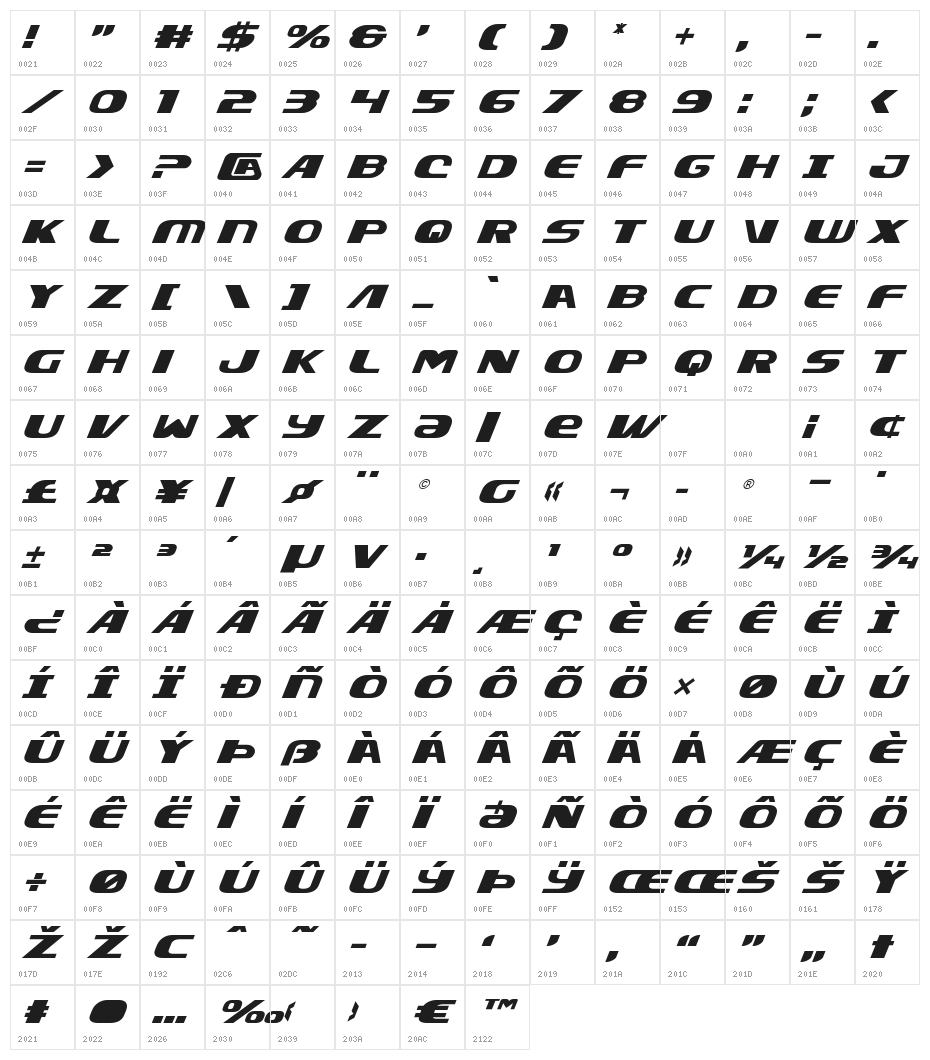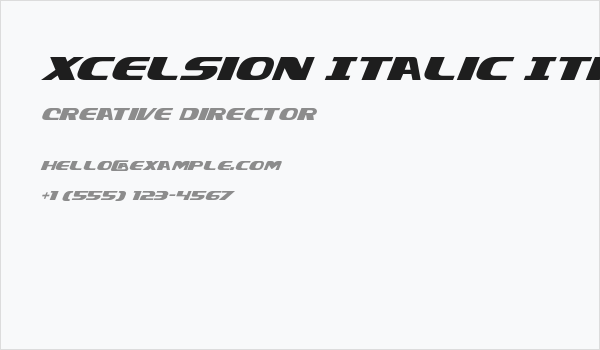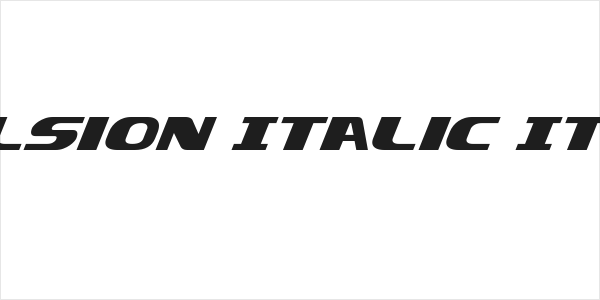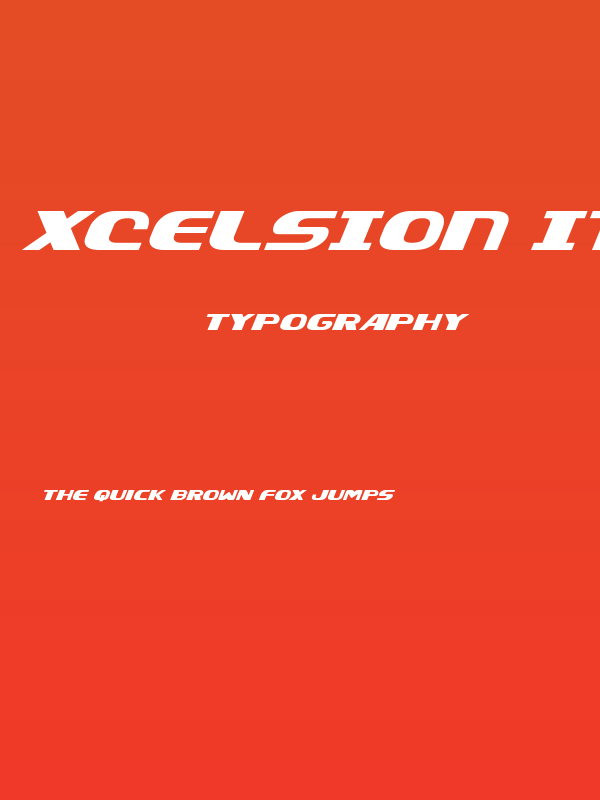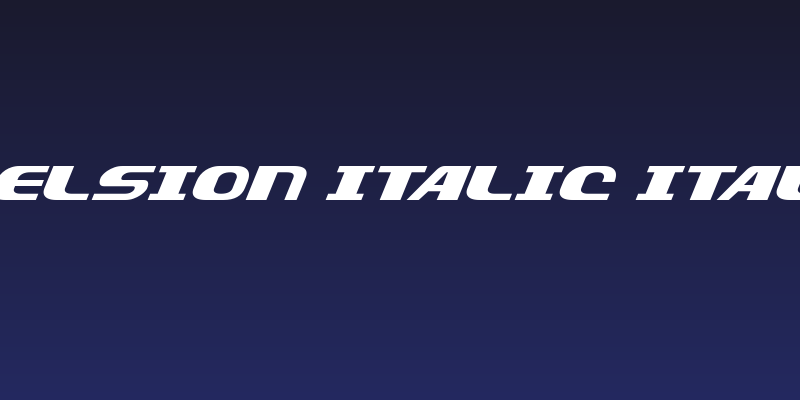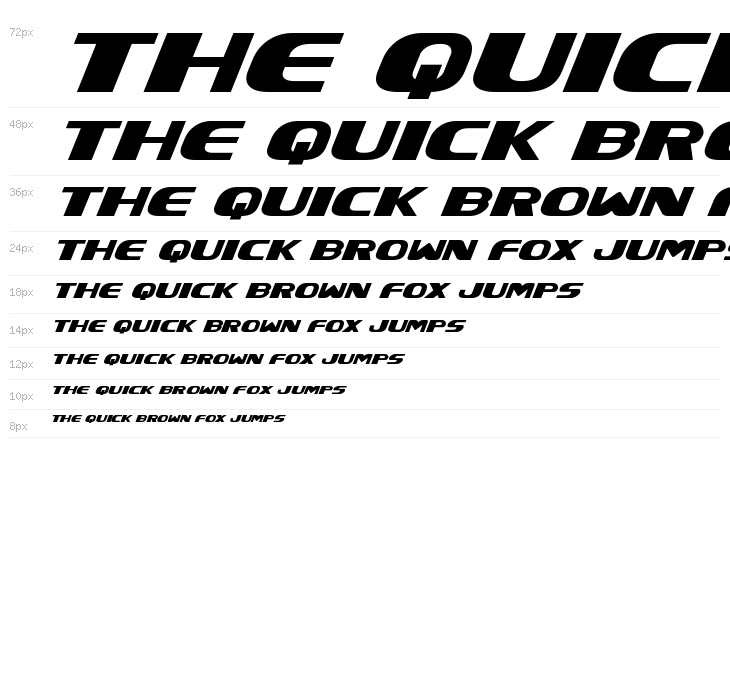
Xcelsion Italic Italic Font
Xcelsion Italic Italic Description
This font features a dynamic and modern design with a strong italic slant, giving it a sense of motion and speed. The characters are bold and have a futuristic appearance, making them stand out prominently. The strokes are consistent in thickness, providing a uniform look across all characters. The uppercase and lowercase letters maintain a cohesive style, with sharp angles and smooth curves. The numbers and special characters are designed to match the overall aesthetic, ensuring versatility in various applications.
| Use Case | Logos, Headlines, Branding |
| Proposed Projects | Ideal for branding, sports team logos, automotive designs, and tech-related projects. |